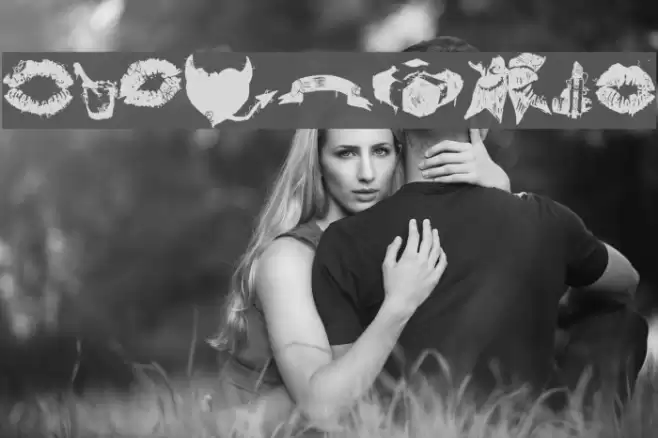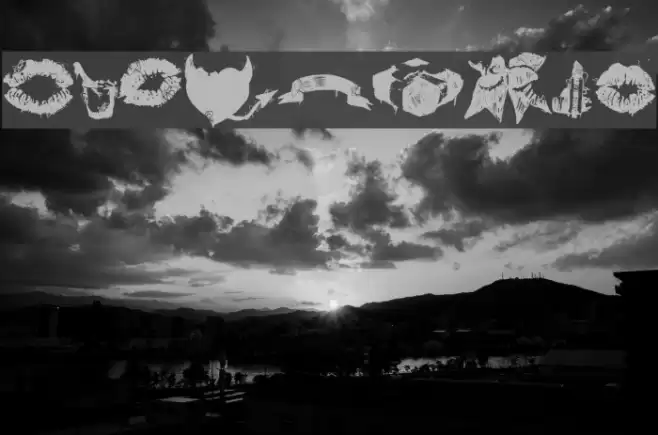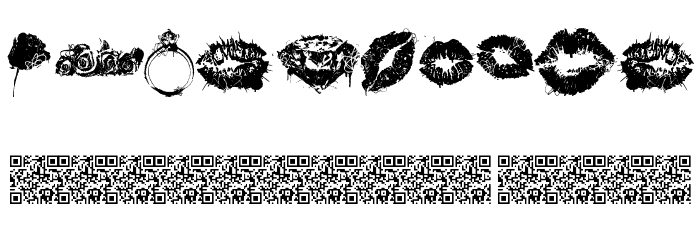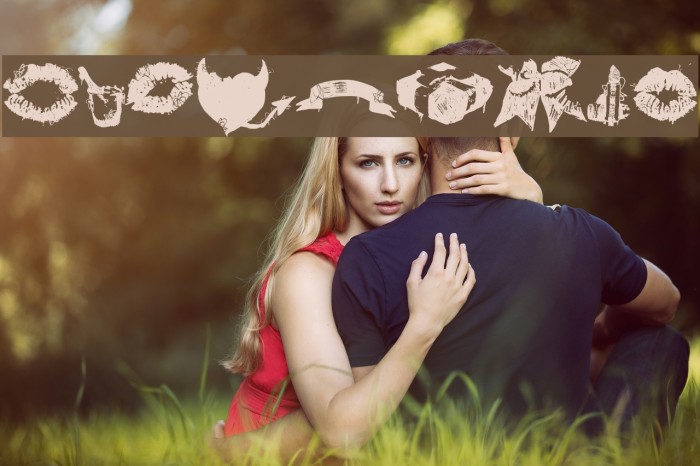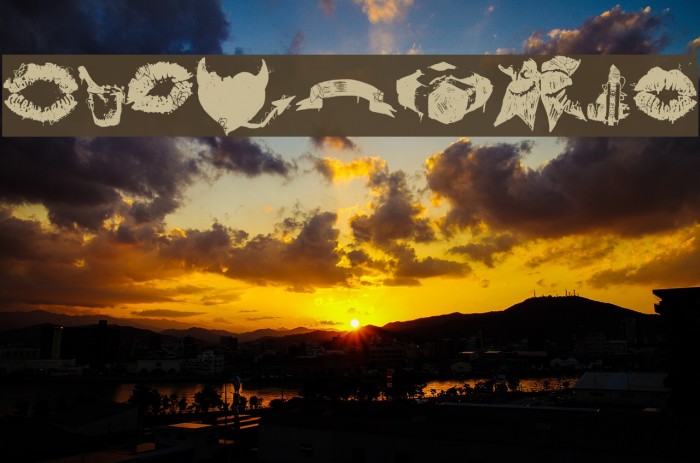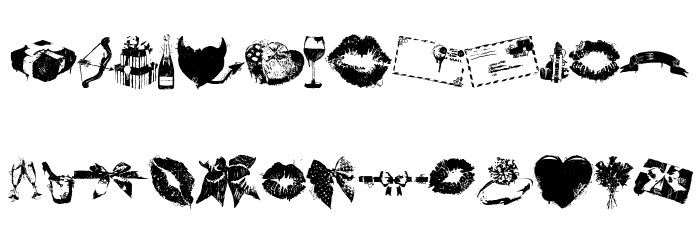
lovemarks Font
lovemarks Description
A decorative dingbat font featuring a variety of love-themed illustrations, including lips, hearts, flowers, gifts, bows, champagne glasses, and romantic motifs. The glyphs are detailed, high-contrast, and rendered in a bold, black-and-white style, suitable for creating borders or embellishments.
Romantic, decorative dingbat font with love and celebration motifs from Uncategorized fonts.
- Proposed Projects: Valentine's Day cards, wedding invitations, romantic event flyers, scrapbooking, decorative borders, themed party materials.
- Overall Style: Decorative, Romantic
- Use Case: Borders, embellishments, themed graphics